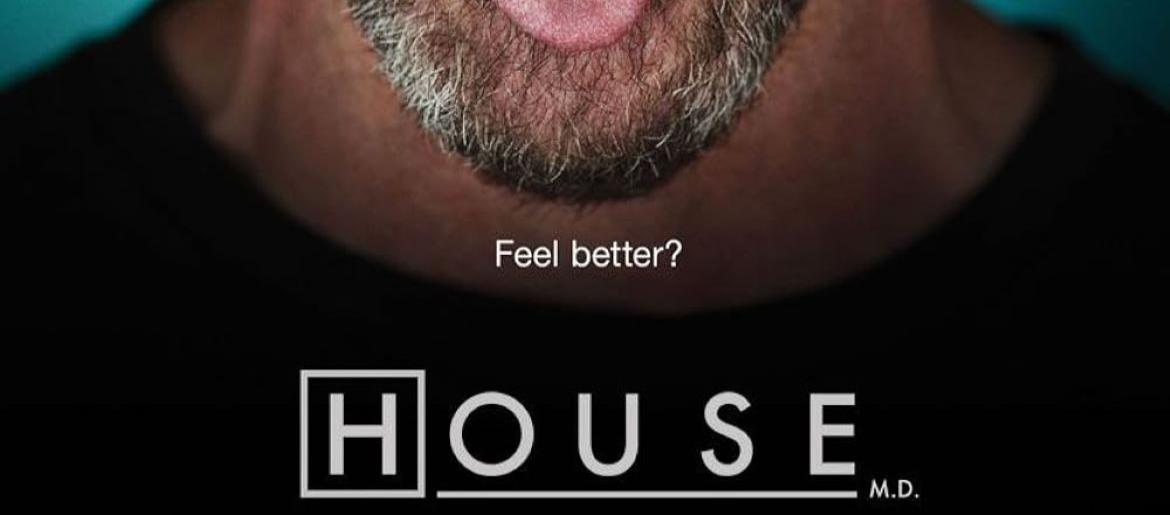
The House Font
The House Font instantly evokes the sharp, clinical world of the hit medical drama House, which aired from 2004 to 2012 starring Hugh Laurie as the brilliant yet cynical Dr. Gregory House. Its clean, minimalist sans-serif letters enclosed in boxes reflect the show’s precise, analytical, and no-nonsense tone.
The typeface resembles House M.D. (designed by Cosmomouse) and other modern sans-serif fonts, offering a professional, sleek, and highly recognizable aesthetic. Perfect for designers and fans who want a smart, structured look while reflecting the wit and intelligence of the series’ iconic protagonist.
About House
House is a medical drama that aired from 2004 to 2012, starring Hugh Laurie as Dr. Gregory House, a diagnostician known for his intelligence, sarcasm, and unconventional methods. The series follows House and his team as they solve complex medical cases, blending medical mystery with sharp humor and intense character drama.